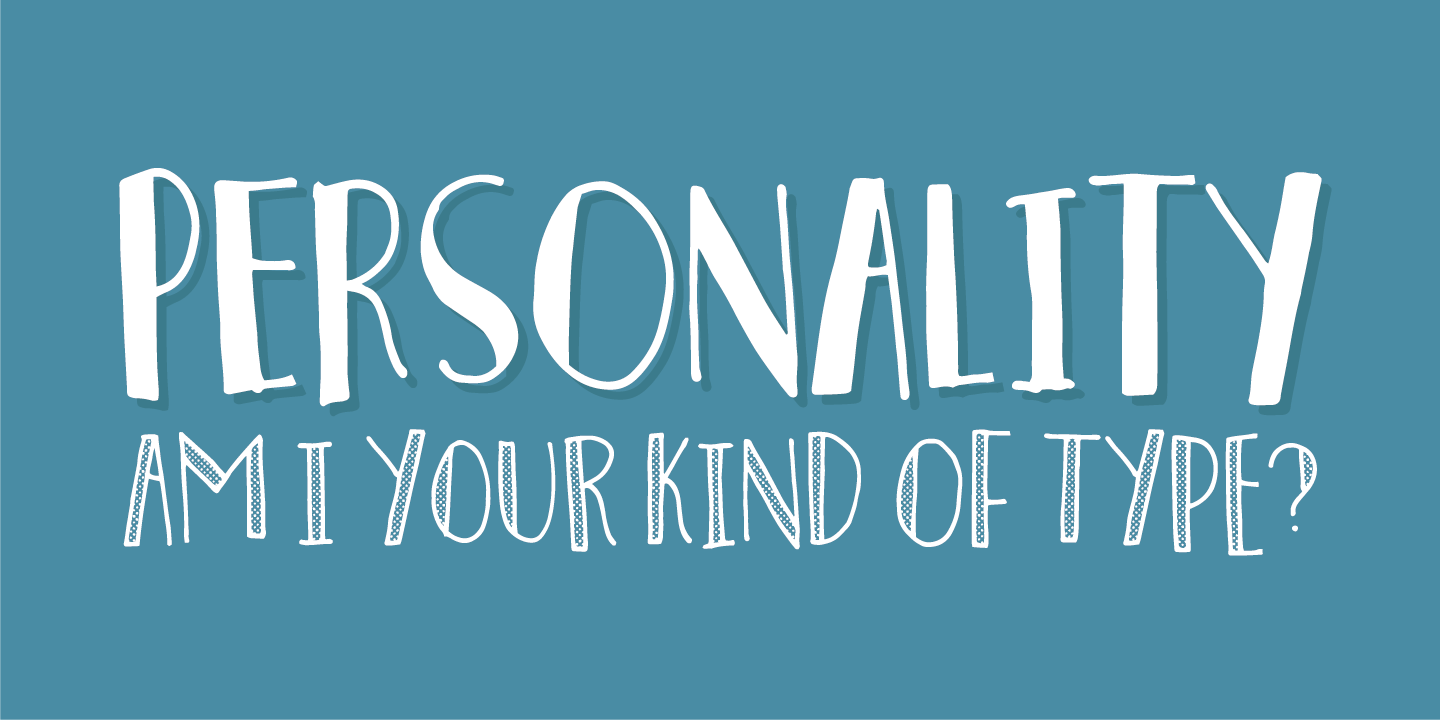
Personality Font is perfect for personal branding, creative portfolios, artistic projects, unique business cards, expressive packaging, boutique brands, and character-driven design applications. This distinctive typeface brings individual flair and authentic expression to personalized design projects.
Personality Font is exciting because it embodies authentic individual expression with its characterful letterforms that convey uniqueness and personal style while maintaining excellent readability and memorable appeal across diverse creative applications and personal branding contexts.
The Personality Font family includes multiple stylistic variations and character alternatives that reflect diverse personality traits and expressive elements. This characterful collection provides designers with personalized options for creating memorable and authentically individual brand experiences.
Personality Font Free Download offers designers access to a uniquely crafted typeface that celebrates individual character and authentic self-expression. This distinctive font features expressively designed letterforms with personality-driven details that create immediate connections with personal style, creativity, and individual uniqueness. The typeface showcases characterful proportions and expressive aesthetics that enhance personal communications while maintaining professional functionality and broad appeal. Its individual character makes it particularly suitable for creative professionals and personal brands that require typography capable of conveying authenticity, personality, and unique creative expression. Personality Font delivers exceptional individual impact for applications where generic fonts feel impersonal and fail to capture the unique character necessary for personal branding and creative communications. The font's expressive appeal and characterful aesthetic make it an essential tool for designers working on projects that require typographic expression of individual personality, creative authenticity, and unique character that resonates with audiences seeking genuine personal connection and authentic creative expression.